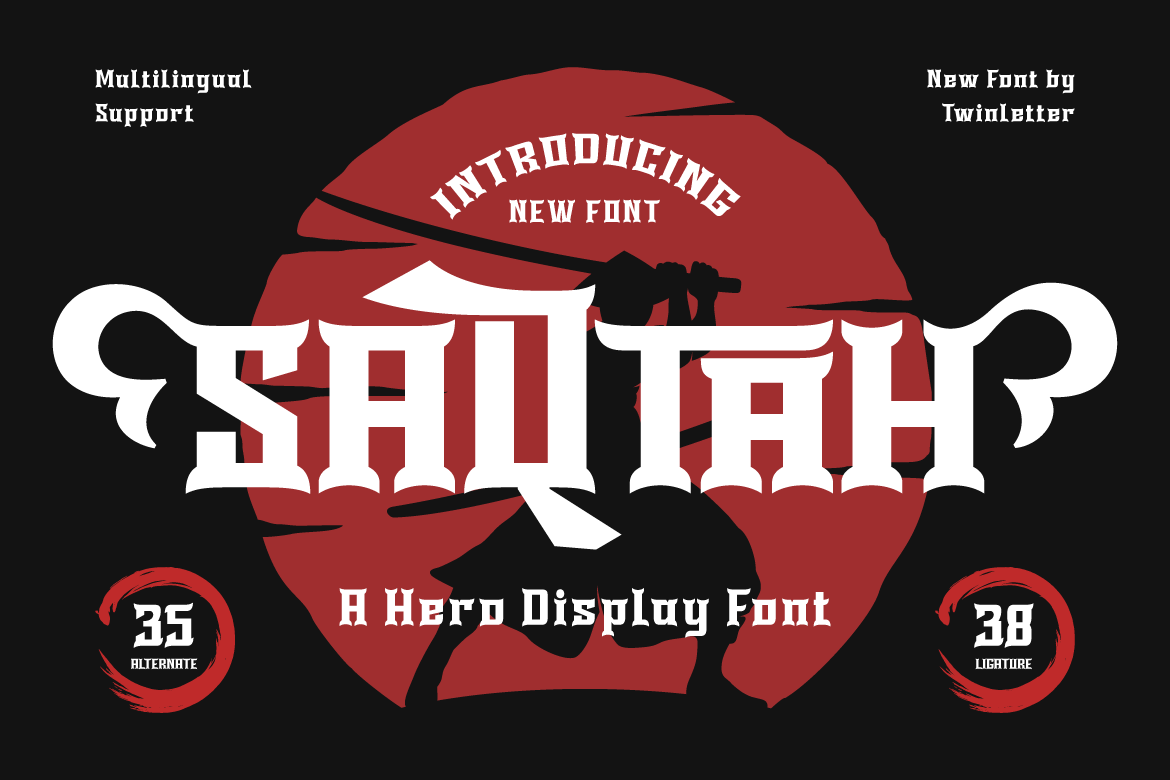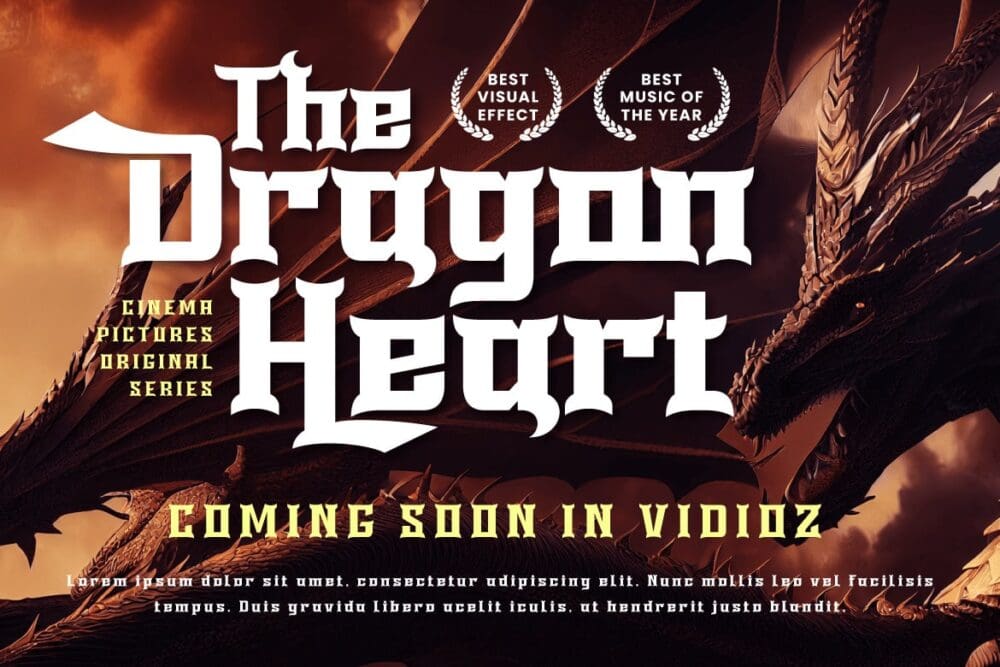
Saqtah Font
Saqtah display font with a superhero style that will bring strength and courage to your projects. Whether you’re working on a film, game, or design with a strong and bold theme, Saqtah is the perfect solution for you. With a stunning appearance, Saqtah will be the main highlight in every design. Each letter is filled with strength and thickness, creating a powerful and impressive look. However, the advantages of Saqtah do not stop there. This font is also equipped with special features.